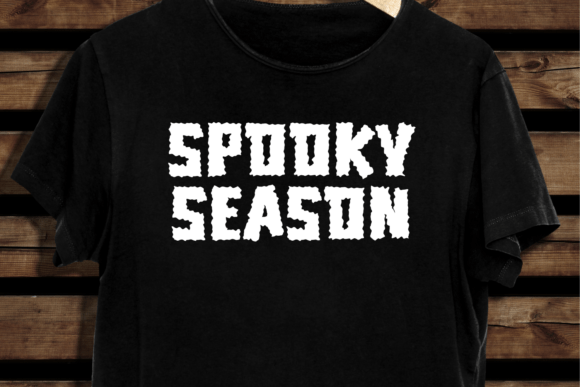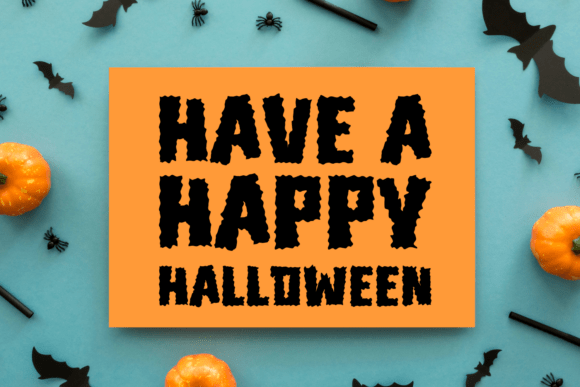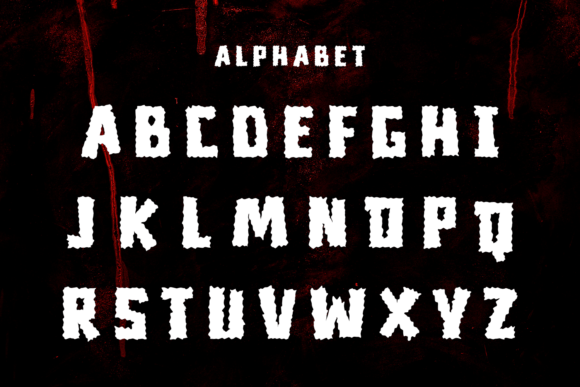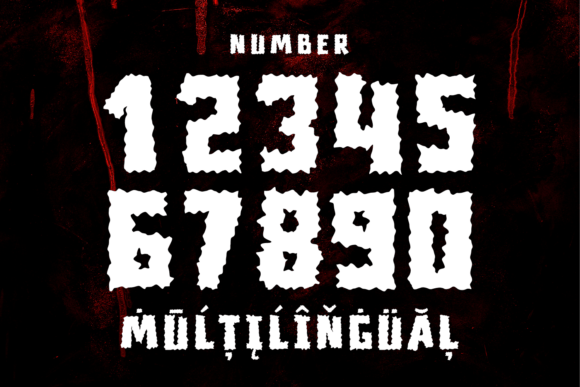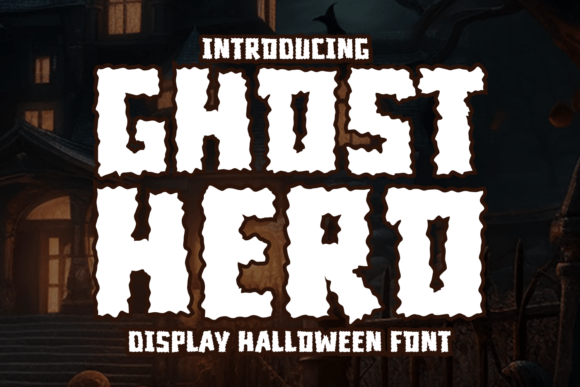
Unleash the Spooky Spirit with Ghost Hero Font: A Comprehensive Guide
As the witching hour approaches, designers and crafters are on the lookout for the perfect typography to capture the essence of Halloween. Look no further than the Ghost Hero Font, a display font that embodies the thrillingly eerie atmosphere of the spookiest season. With its multitude of unique styles, this boldly peculiar typeface is ideal for crafting unforgettable Halloween party invites, spectral narratives, and other creepy creations.
The Essence of Ghost Hero Font
Ghost Hero Font is a masterfully designed display font that exudes an uncanny ambiance, perfect for conjuring up spine-tingling experiences. Its eerie and haunted appearance is reminiscent of haunted house signs, survival guides for an impending zombie apocalypse, and witchy tales that will leave your audience shivering in fear. Whether you’re a designer, crafter, or simply a Halloween enthusiast, this font is sure to cast a spell on your audience.
Crafting Unforgettable Halloween Party Invites
Halloween party invites are the perfect opportunity to set the tone for a spooktacular celebration. With Ghost Hero Font, you can create invitations that are both eerie and enticing. Imagine a haunted mansion invitation with the font’s signature ghostly letters, beckoning guests to join in on the spooky fun. The font’s versatility allows you to experiment with various styles, from bold and scary to whimsical and playful.
Spectral Narratives and Witchy Tales
Ghost Hero Font is not just limited to party invites; it’s also perfect for crafting spectral narratives and witchy tales that will leave your readers shivering in fear. The font’s eerie ambiance is ideal for horror stories, ghostly encounters, and supernatural tales that will transport your audience to a world of fear and fantasy. Whether you’re a writer, blogger, or simply a horror enthusiast, this font is sure to add an extra layer of tension and suspense to your stories.
Chilling ‘Boo!’ Impressions and Haunted House Signs
The Ghost Hero Font is also masterful at spinning chilling ‘Boo!’ impressions and creating haunted house signs that will leave your audience gasping in fear. Imagine a giant ‘Boo!’ sign on a haunted house door, or a creepy welcome sign that sets the tone for a terrifying experience. The font’s bold and eerie letters are sure to make a lasting impression on your audience.
Zombie Apocalypse Survival Guides and More
The Ghost Hero Font is not just limited to Halloween-themed creations; it’s also perfect for crafting survival guides for an impending zombie apocalypse. Imagine a bold and eerie guide that warns survivors of the impending doom, or a creepy map that leads them to safety. The font’s versatility allows you to experiment with various styles and themes, from post-apocalyptic landscapes to creepy survival guides.
Tips and Tricks for Using Ghost Hero Font
To get the most out of the Ghost Hero Font, here are some tips and tricks to keep in mind:
- Experiment with different styles: The Ghost Hero Font comes in a multitude of unique styles, so don’t be afraid to experiment and find the one that works best for your project.
- Pair with other fonts: The Ghost Hero Font pairs well with other fonts, such as sans-serif fonts for a modern look or script fonts for a more elegant feel.
- Use it sparingly: While the Ghost Hero Font is perfect for headlines and titles, it can be overwhelming to use it for body text. Use it sparingly to create a lasting impression.
The Ghost Hero Font is a must-have for designers and crafters looking to capture the essence of Halloween. With its multitude of unique styles and eerie ambiance, this boldly peculiar typeface is perfect for crafting unforgettable Halloween party invites, spectral narratives, and other creepy creations. Whether you’re a designer, writer, or simply a Halloween enthusiast, the Ghost Hero Font is sure to cast a spell on your audience.